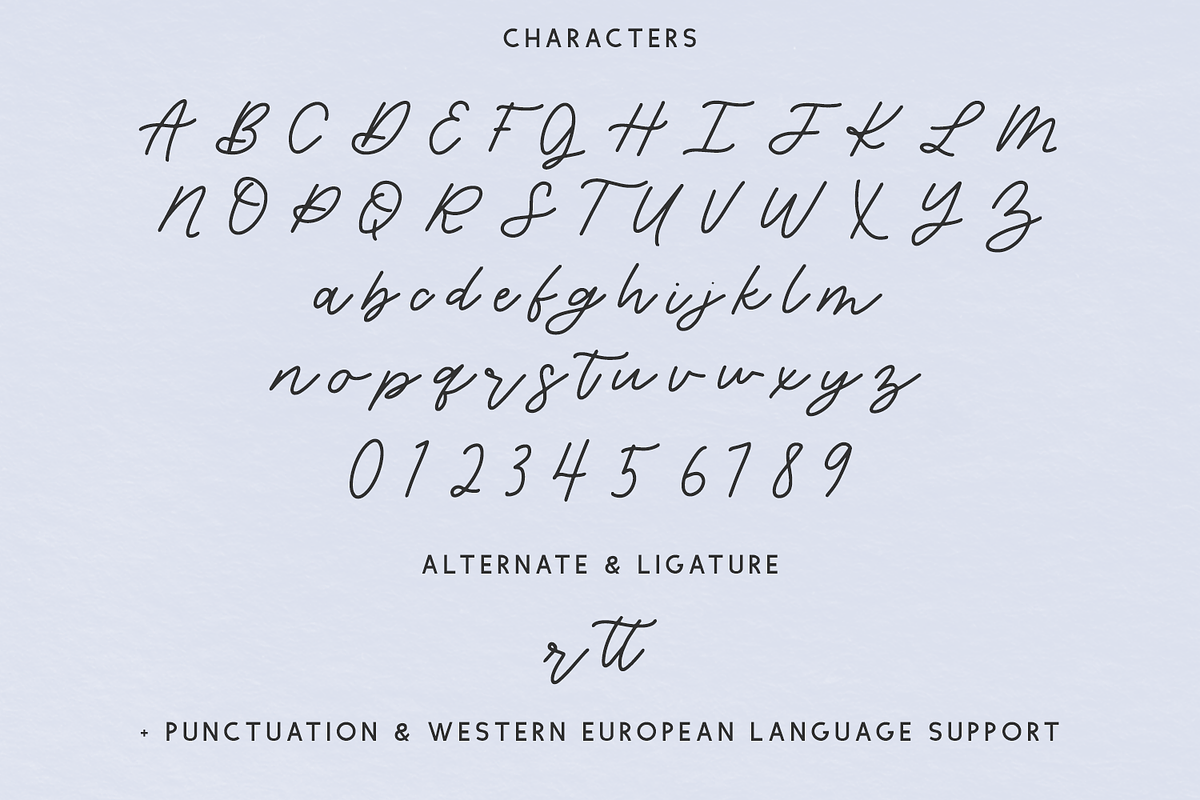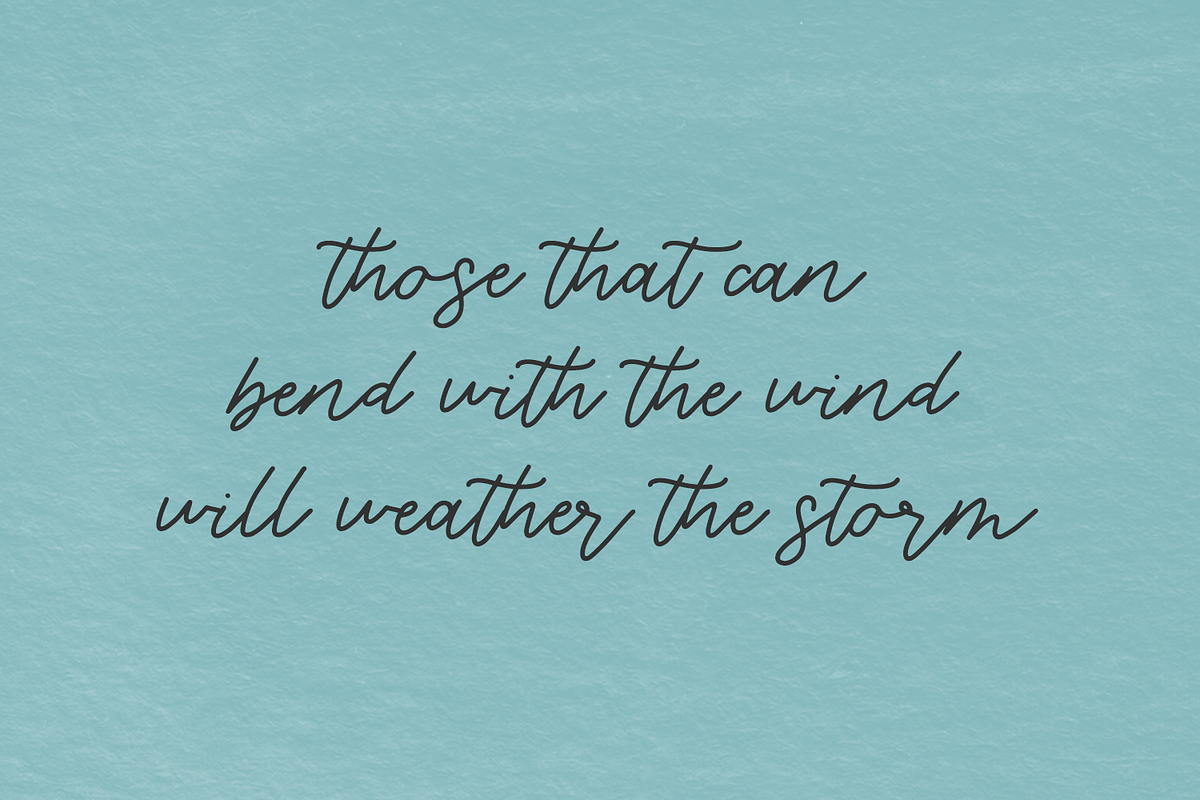
Mistral Script
Introducing Mistral, a modern handwriting font.
Mistral is best for:
- modern projects with your Cricut or Silhouette machine, or your SVG design business
- farmhouse decor and crafts
- logos + branding
- digital planners & apps like Goodnotes
- website design + website accents, blog design
- clean print design, like magazines + flyers
- header elements that need handwritten touch
- quote graphics for social media
- graphic tee shirt design & other apparel
Mistral includes:
- full upper + lowercase characters
- numbers + punctuation
- Western European Language Support
- 1 alternate character (initial form r) and 1 ligature, tt